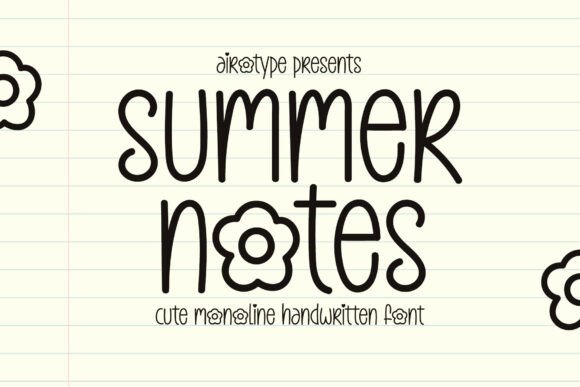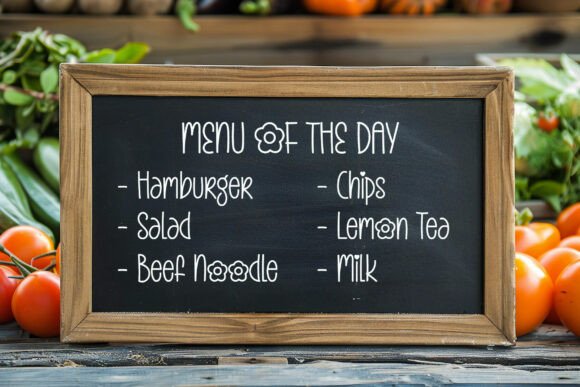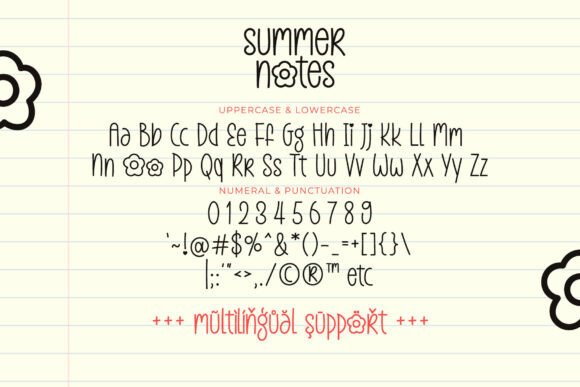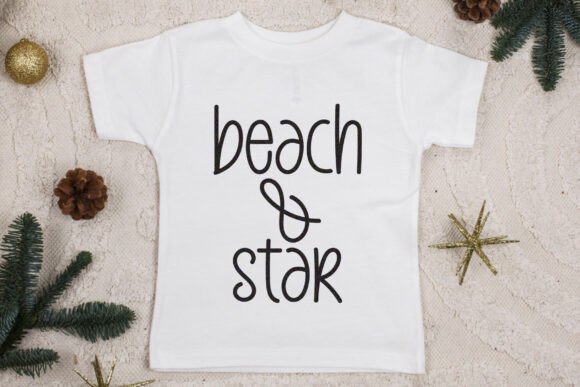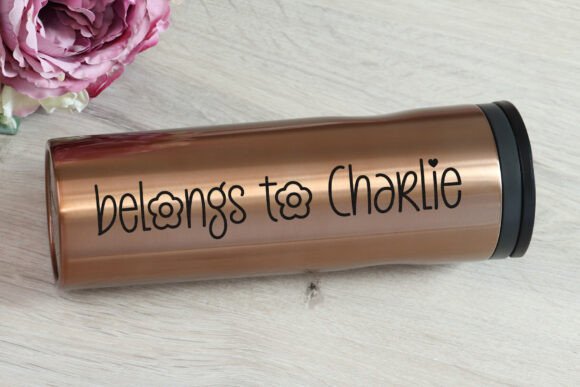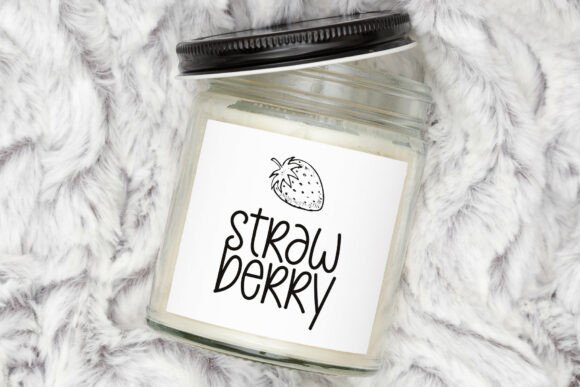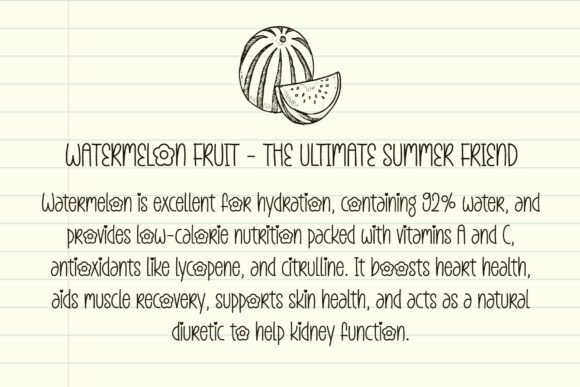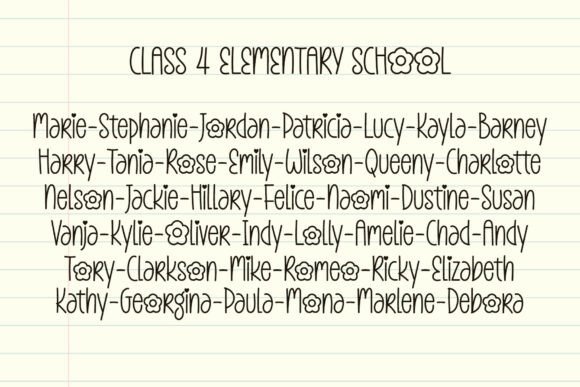
Summer Notes Script Fonts
Capture the unstudied charm of a handwritten journal with Summer Notes. This typeface discards the rigid for the rhythmic, offering a fluid, organic aesthetic that feels deeply personal and refreshingly human. It’s the ultimate companion for creative projects that demand a sense of warmth and spontaneity.
Whether you are composing sun-soaked event invitations, crafting bespoke apparel graphics, or designing playful seasonal collateral, Summer Notes injects a breath of fresh air into your layouts. It bridges the gap between digital precision and artisanal soul, making it an essential choice for everything from tactile stickers and sublimation crafts to vibrant school-themed branding. Elevate your visual storytelling with a font that celebrates the beauty of the casual stroke.